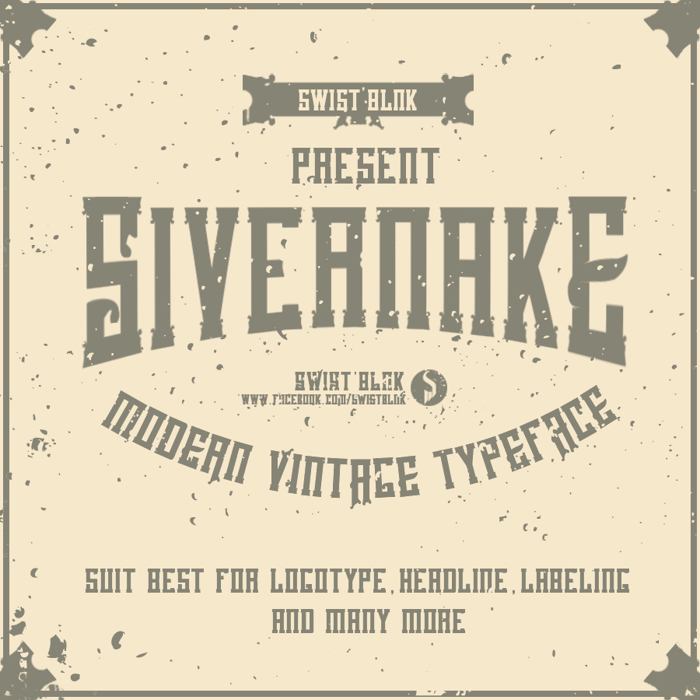
Sivernake Font
Sivernake typeface is a vintage font, useful to create a vintage apparel design, logotype, labeling and many more. this is available in otf and ttf. DEMO version only includes some alphabet.